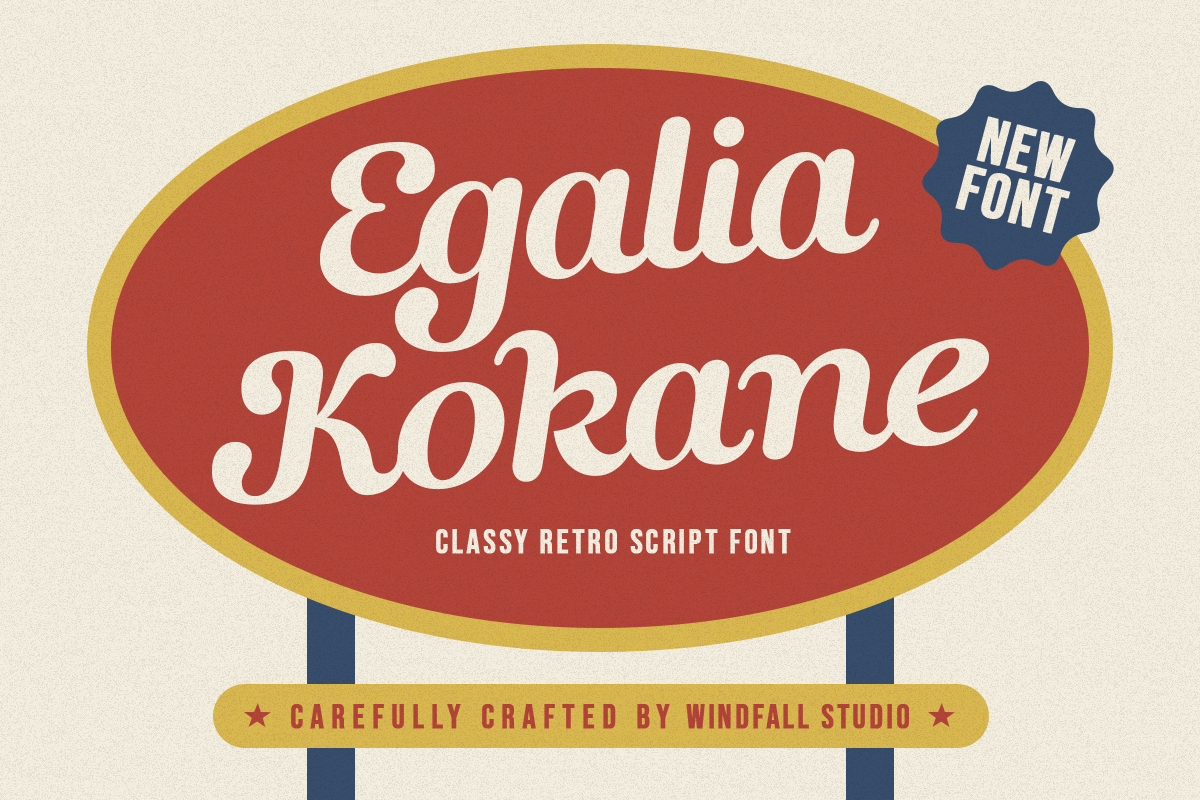
Egalia Kokane - Script Retro Font
Egalia Kokane - Retro Font With roots in the luxurious details of the Art Nouveau movement and bold flourishes found in psychedelic culture, you're sure to capture vintage magic with this new retro font. Plus, we built this font using OpenType features so it automatically adjusts to fit perfectly within your design layout. No fussing around with tracking values or kerning pairs needed!